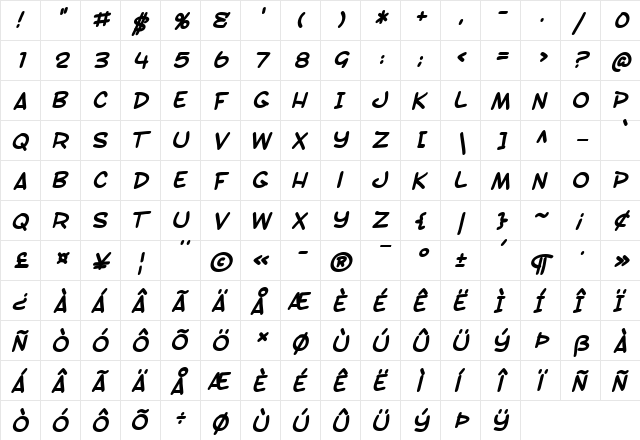
SF Toontime Bold Italic
Design Context for SF Toontime Typeface
SF Toontime is a composed and adaptable typeface that performs quietly and consistently across a wide range of design contexts. The dynamic lean of this cut emphasises speed and emphasis in any layout. Its bold stroke weight gives it real presence on the page.